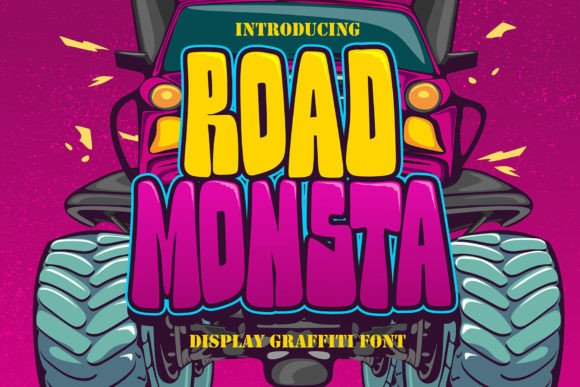
Introducing Road Monsta Font, the ultimate font for sticker enthusiasts and design rebels! Created by Cikareotype, this bold and expressive graffiti font is the perfect choice for those seeking to make a powerful statement with their design projects.
With its striking lines and expressive letter characters, Road Monsta Font adds an urban and edgy touch to your typography. Whether you're designing posters, logos, or anything that requires a strong graffiti aesthetic, this font guarantees that your message will appear bold and full of energy.
Imagine the impact you can create with Road Monsta Font. It grabs attention instantly and demands to be noticed. Your designs will stand out from the crowd, leaving a lasting impression on your audience. Each letter tells a story, conveying a sense of rebellion, confidence, and creativity.
But Road Monsta Font isn't just about style; it's also about functionality. Its versatility allows you to use it in various design projects, from streetwear brands to music album covers. Let your imagination run wild and bring your ideas to life with this captivating font.
Don't miss out on the opportunity to make a statement with your designs. Road Monsta Font empowers you to express yourself and captivate your audience like never before. It's time to take your creativity to the next level and leave a lasting impression with this font for sticker lovers.